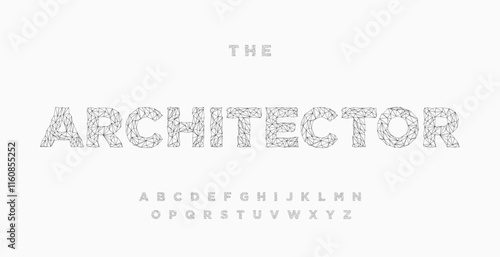
Architect alphabet, blueprint geometric letters, construction plan font for engineering logo, drafting project headline, building floor plan typography, CAD typo graphic. Vector typographic design